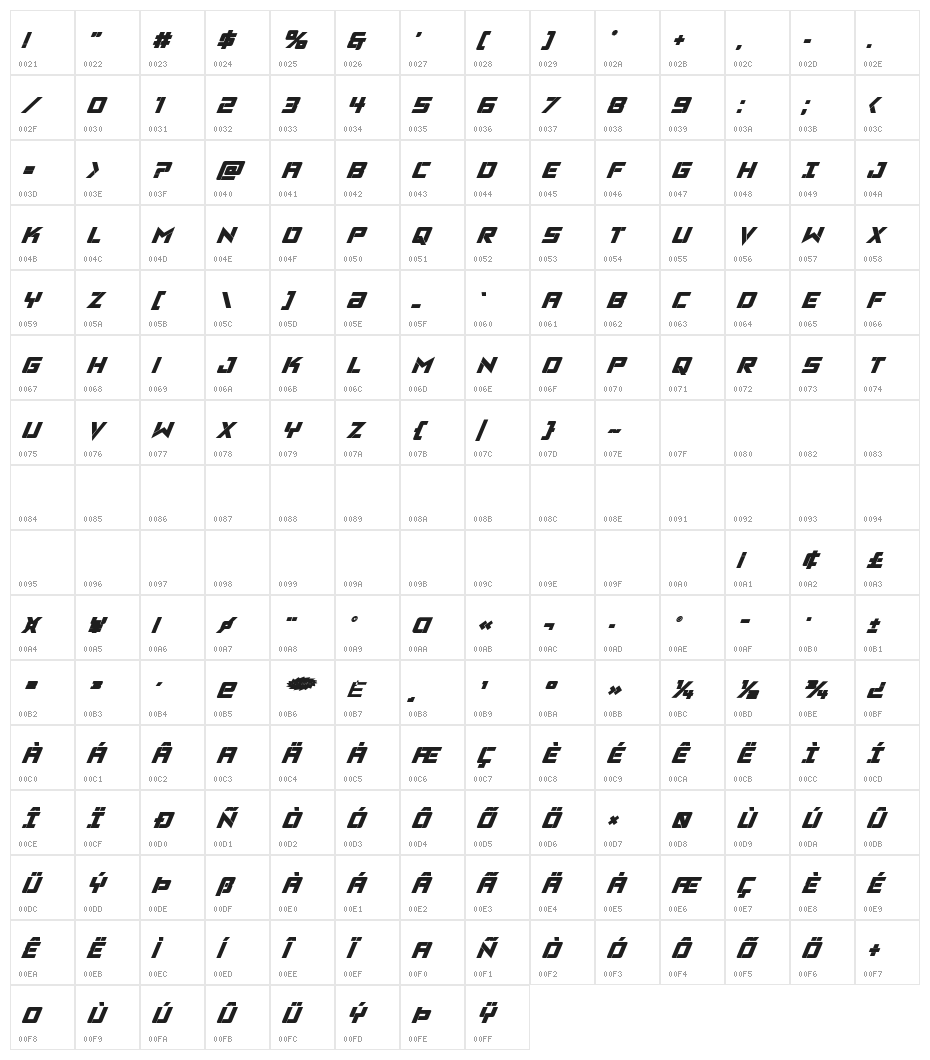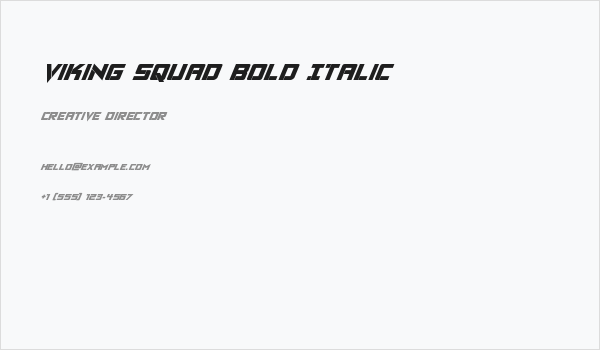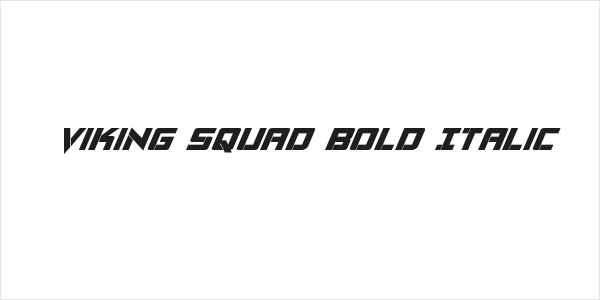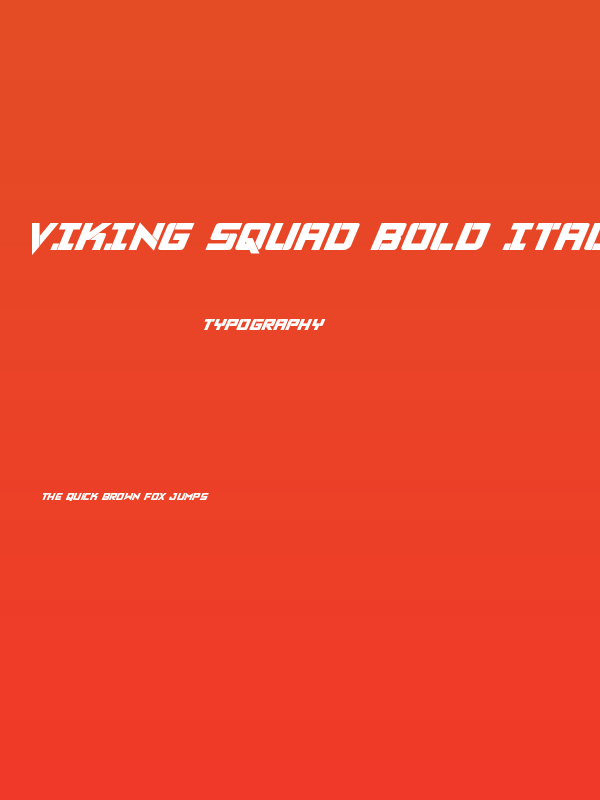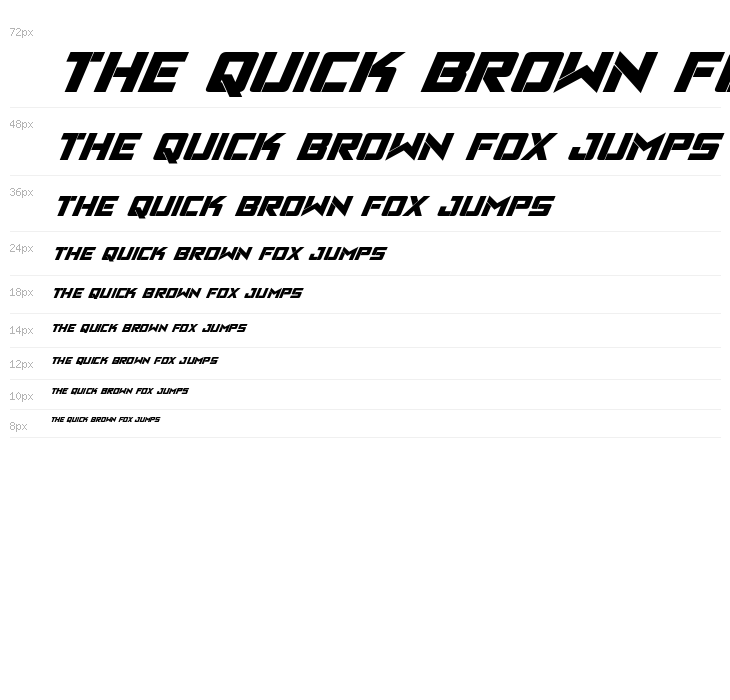
Viking Squad Bold Italic Font
Viking Squad Bold Italic Description
This font features a bold and italicized style with a strong, angular design. The characters are sharply defined with a futuristic and dynamic appearance, making them stand out prominently. The uppercase letters are consistent in height, with a slight forward slant that adds a sense of motion and energy. The numerals and special characters follow the same bold and angular design, ensuring uniformity across the typeface. The overall look is modern and assertive, suitable for projects that require a striking and impactful visual presence.
| Proposed Projects | Ideal for sports branding, video game titles, action movie posters, and dynamic advertising campaigns. |